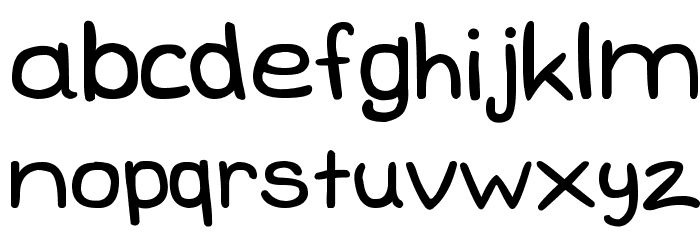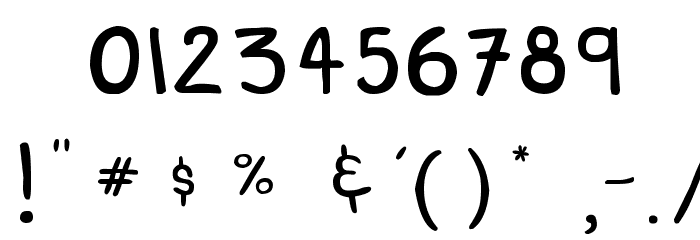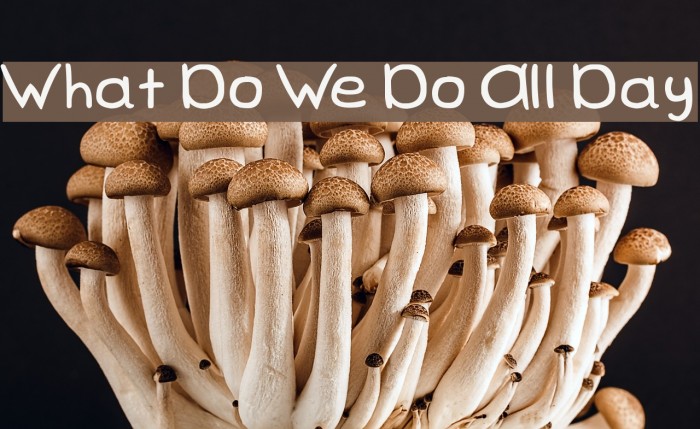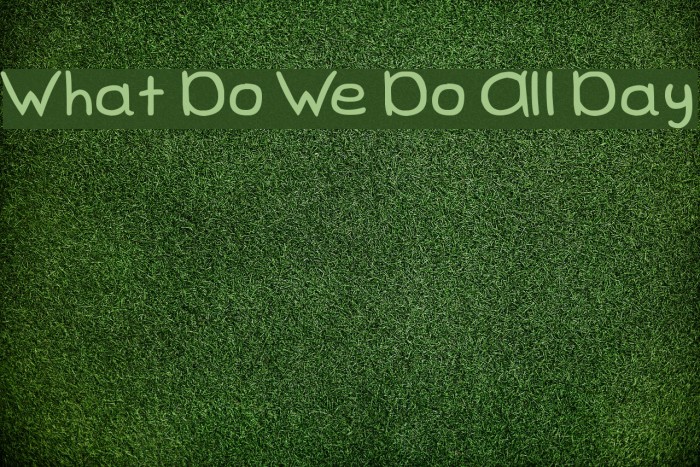
What Do We Do All Day Font
This playful and whimsical font features rounded, smooth edges and a casual, handwritten style. The characters are slightly irregular, giving it a friendly and approachable appearance. The uppercase letters maintain a consistent height, while the lowercase letters have a slight bounce, adding to the font's charm. The numerals are clear and easy to read, matching the overall style of the alphabet. Special characters are included, maintaining the same playful aesthetic. This font is perfect for projects that require a fun and informal touch.
A playful, handwritten font with rounded edges and a casual style.
- Proposed Projects: Ideal for children's books, playful branding, greeting cards, and informal invitations.
- Overall Style: Playful
- Use Case: Headlines, Logos, Informal Text